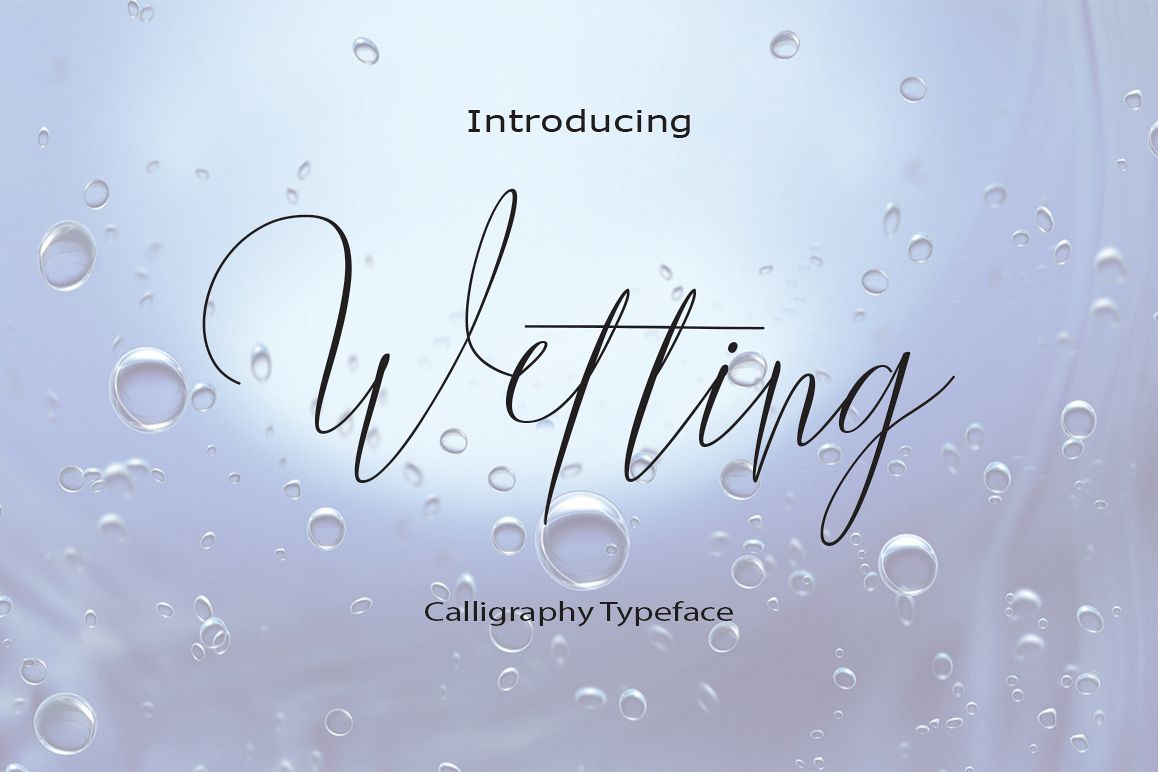
Wetting
Wetting a work that is purely a result of handwriting, has a natural characteristic. this is perfect for invitations, signatures, blogs, social media, business cards, product brands.Wetting has Stylistic standard, Stylistic Alternate, Stylistic Sets and ligatures. and includes uppercase and lowercase letters, numbers and punctuation marks.